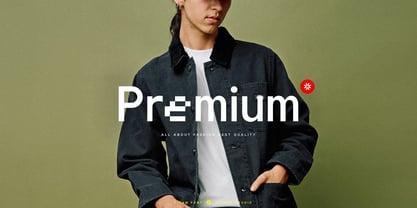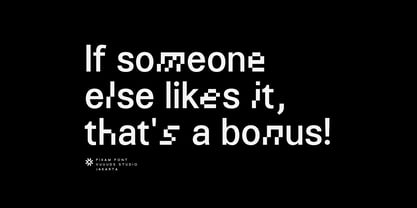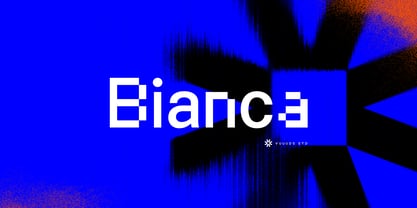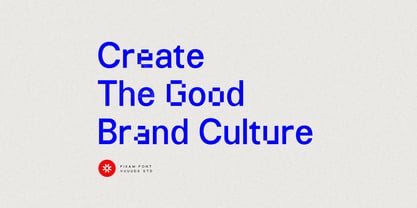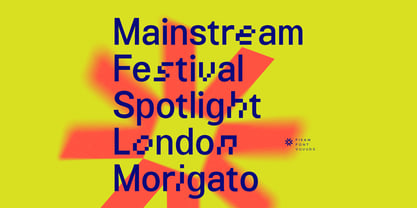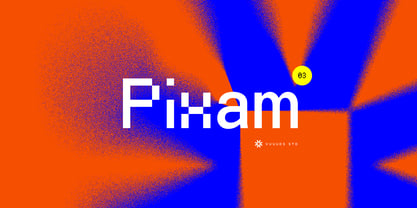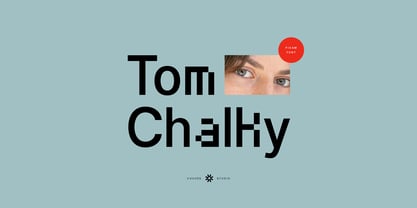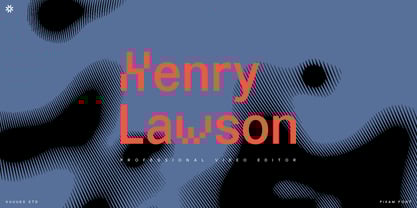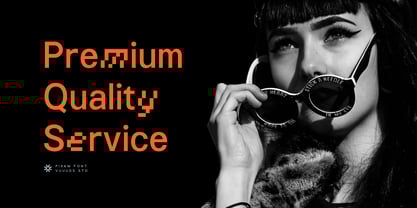
Pixam
by vuuuds
The Pixam Font Family was designed by Agung Syaifudin and published by vuuuds. Pixam contains 3 styles and family package options. More about this family
Introducing Pixam Font!
Pixam is experimental style font, combining regular sans serif with pixel art font. Every single glyph have been uniquely crafted.
Designers: Agung Syaifudin
Foundry: vuuuds